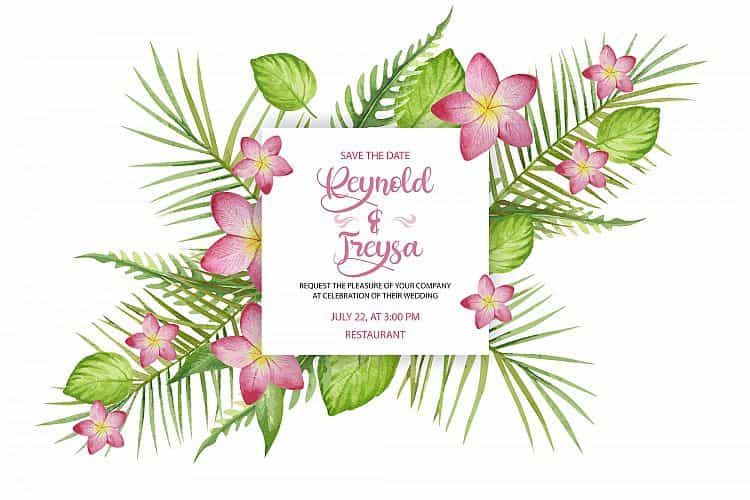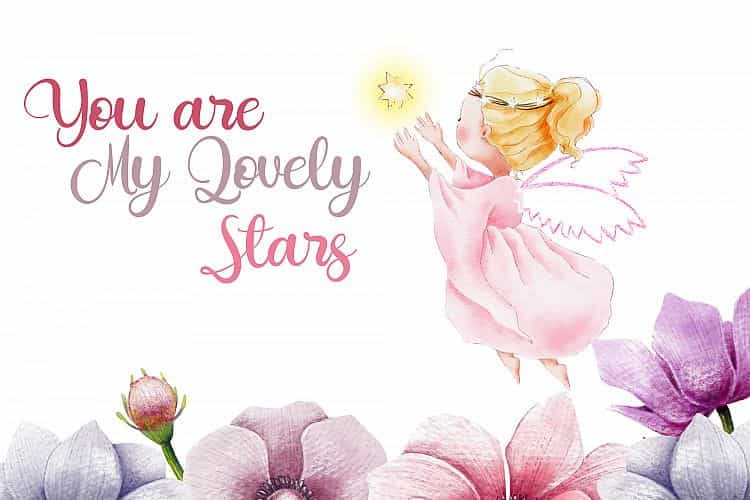
Summer Tropical a Humorous script that is feminine in nature, it has decorative characters. in this font script there are many different characters which can be used as an alternative. Besides, it also supports Ligature and Stylistic set. Thus, the elegant designs can be used on invitation cards, greeting cards, branding materials, business cards, quotes, posters, wedding invitations and so on.